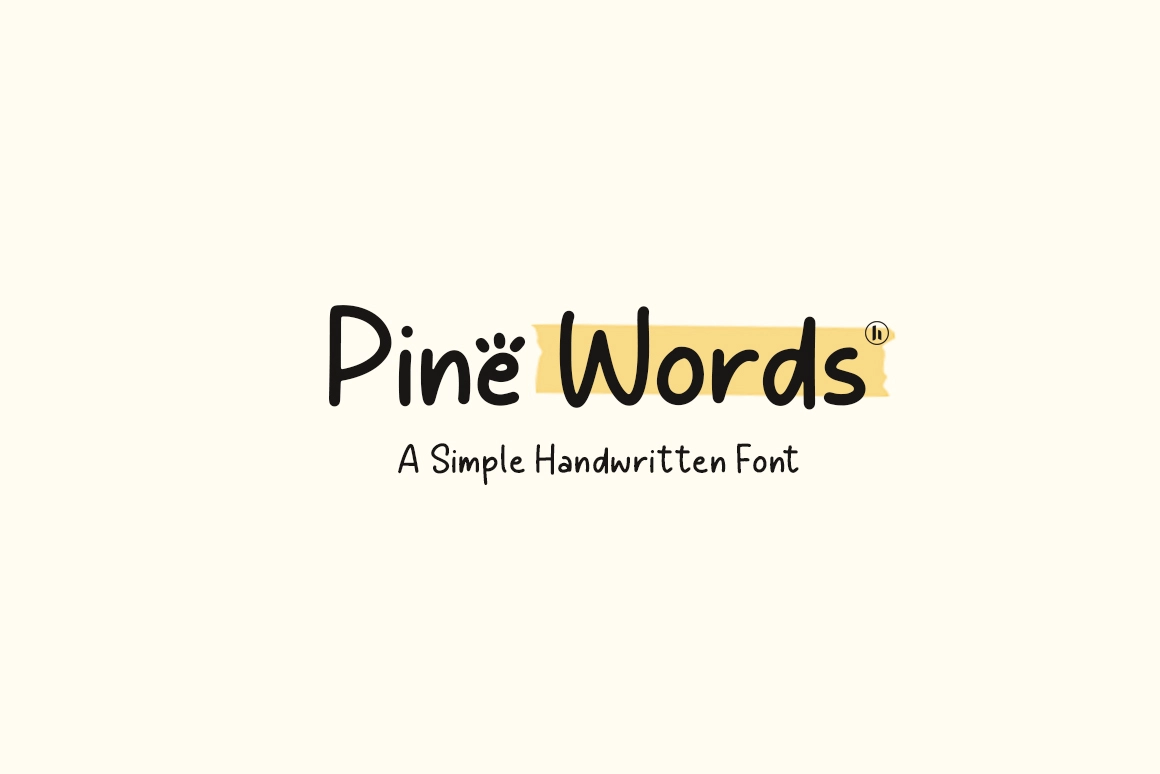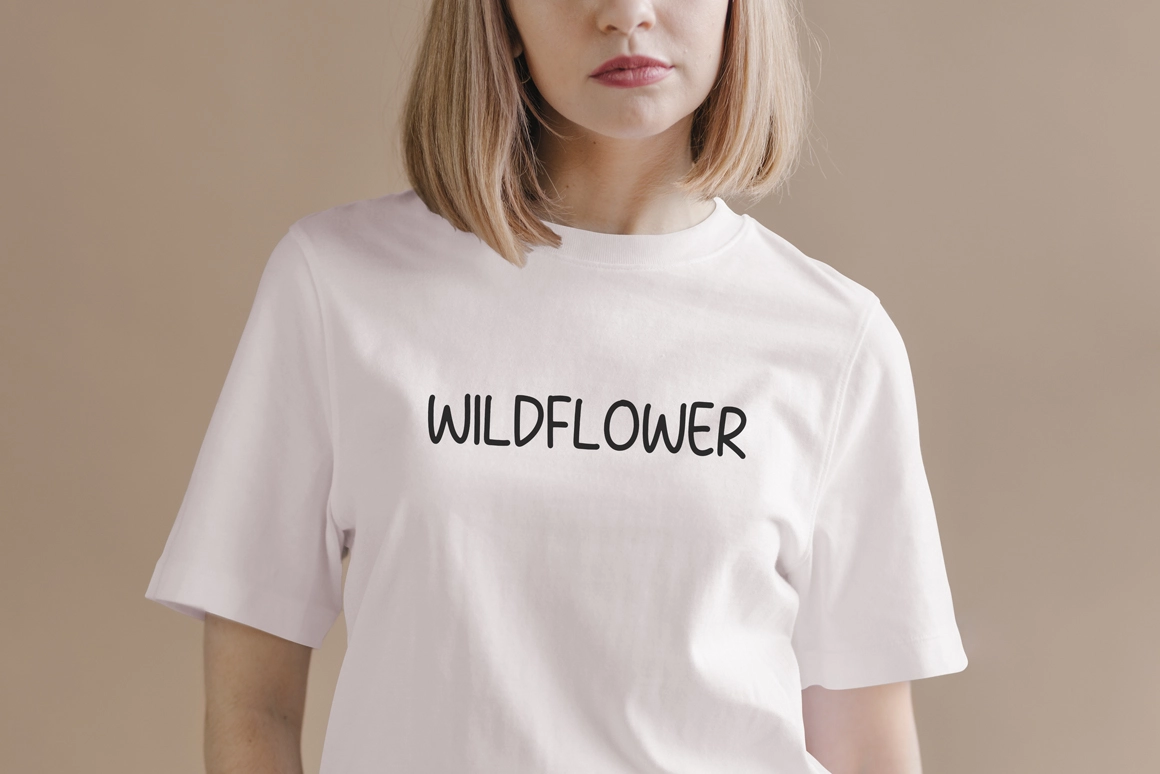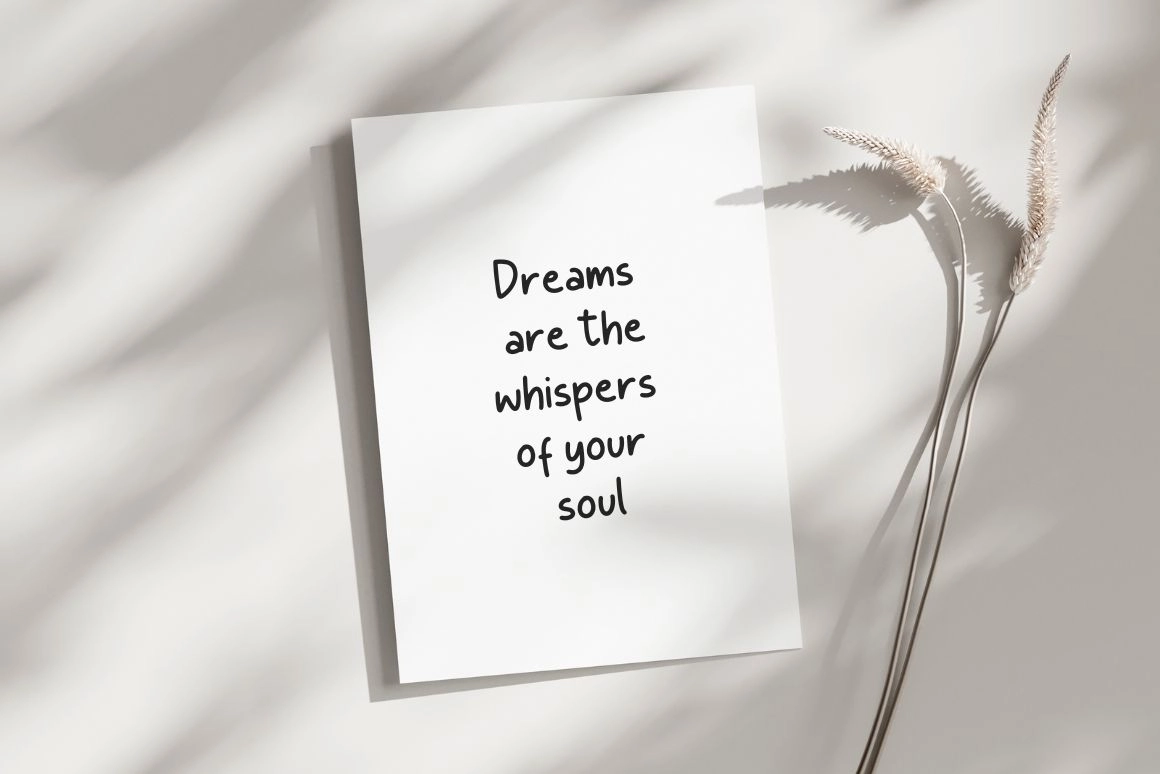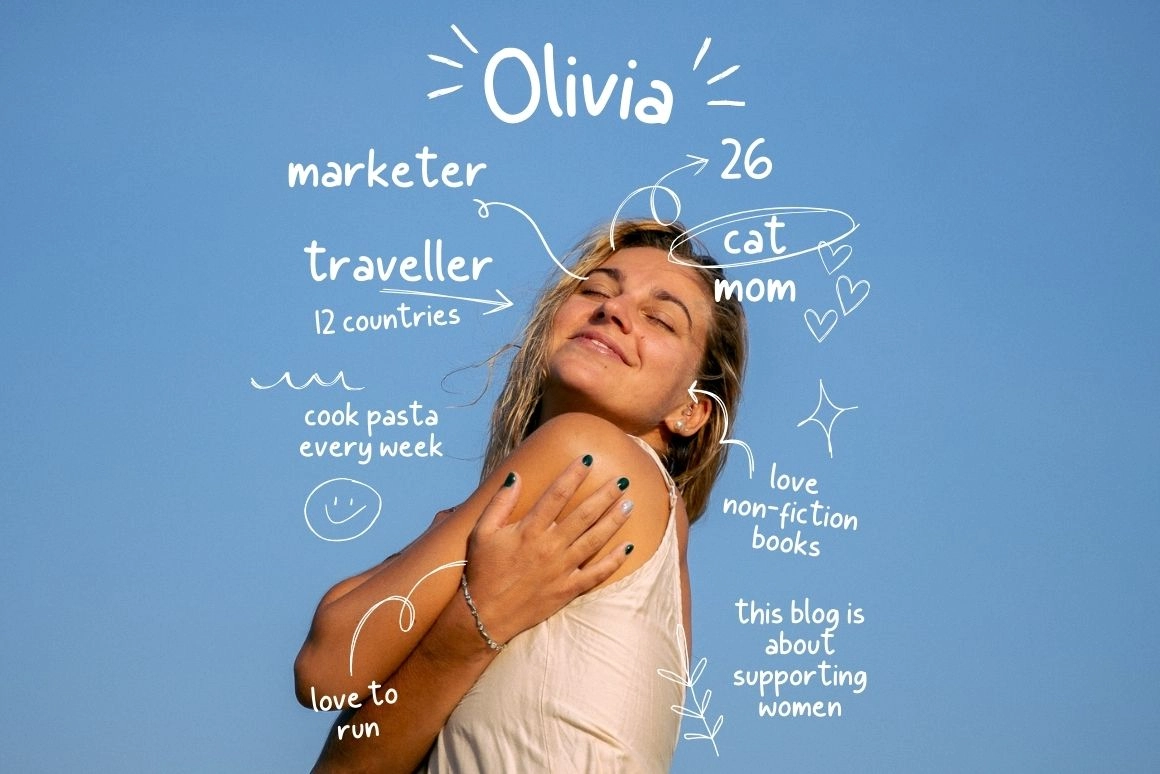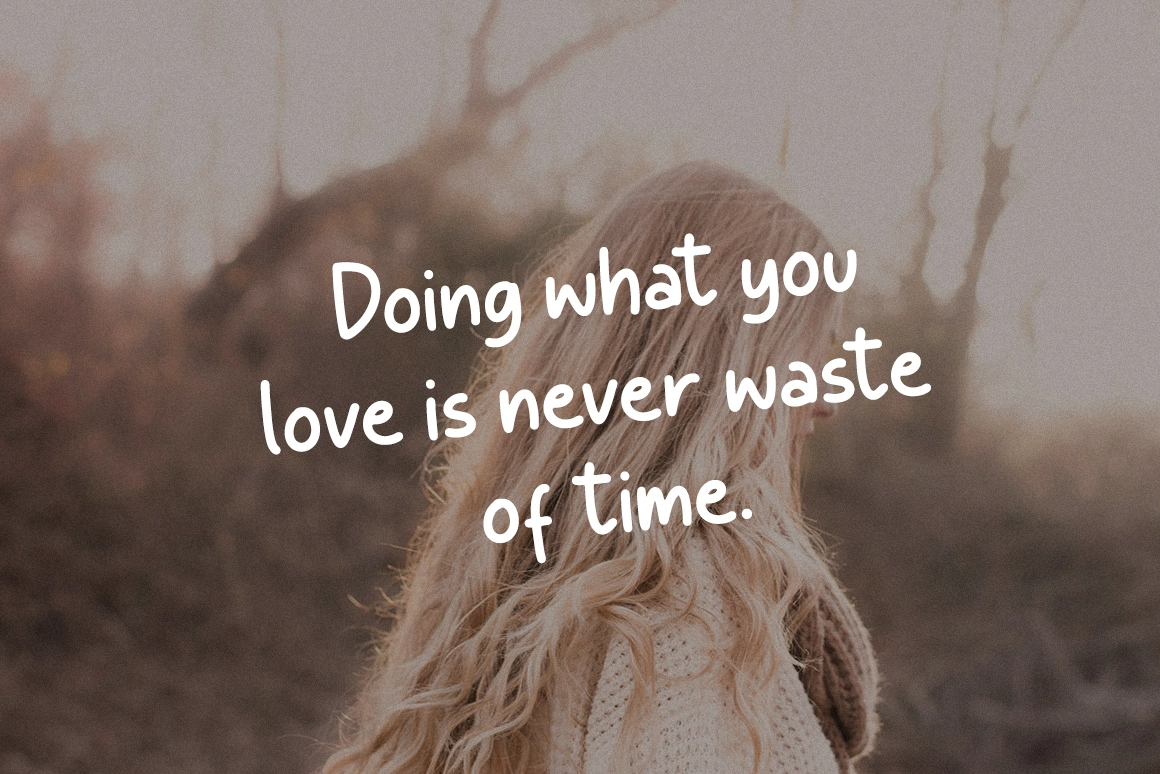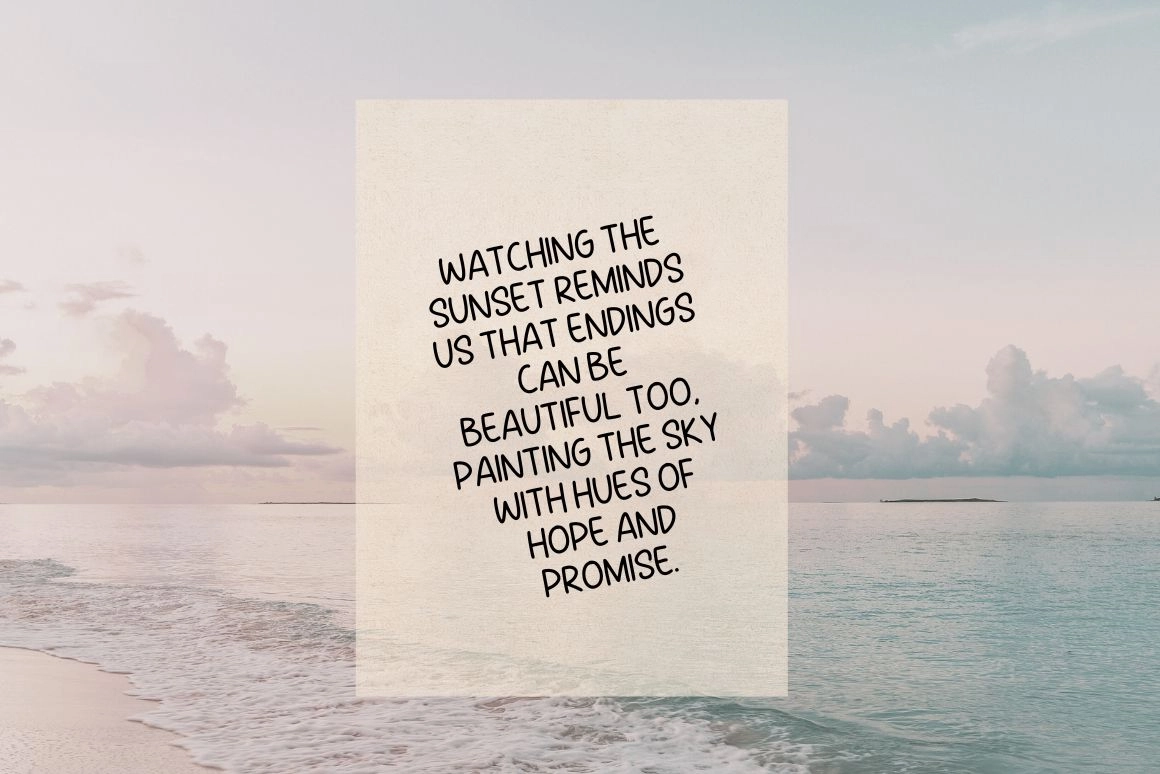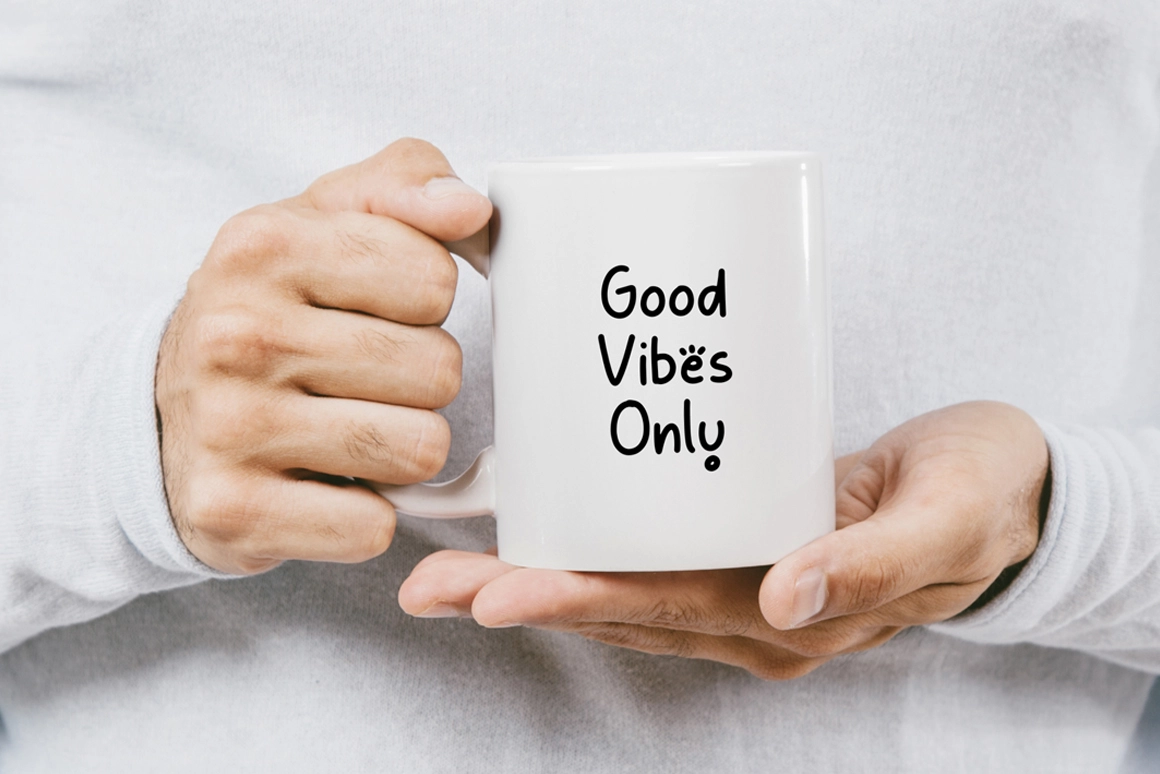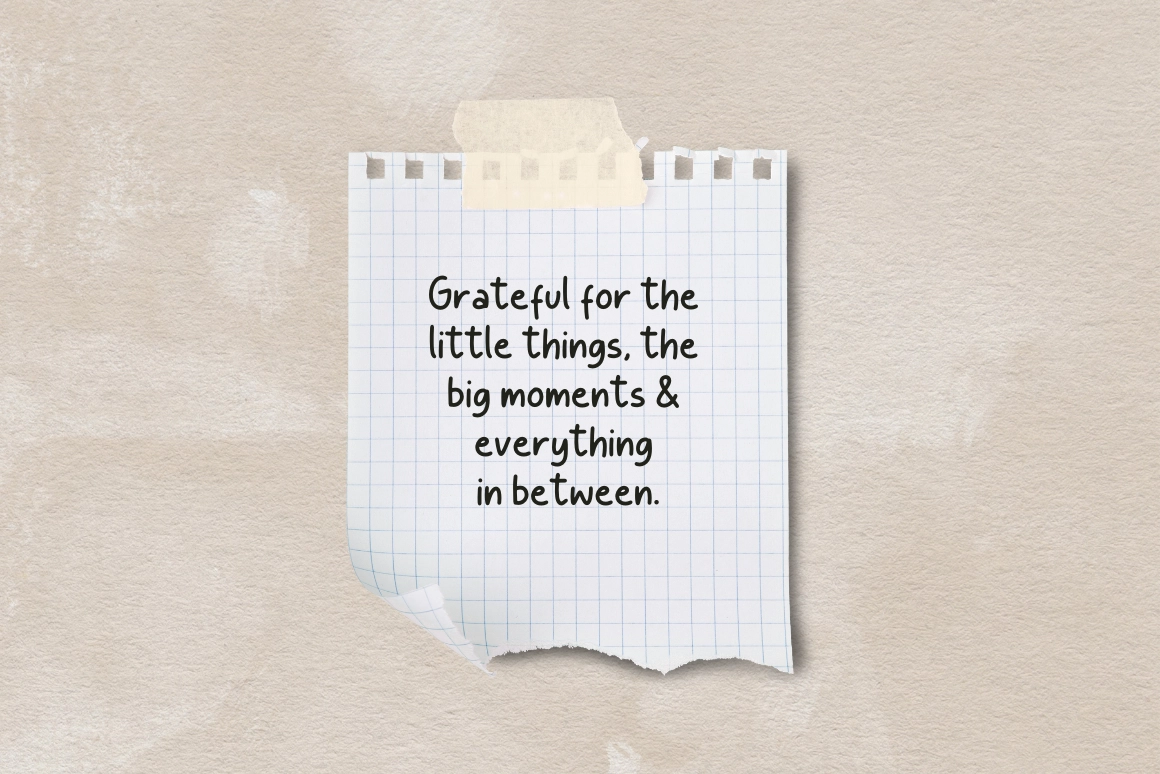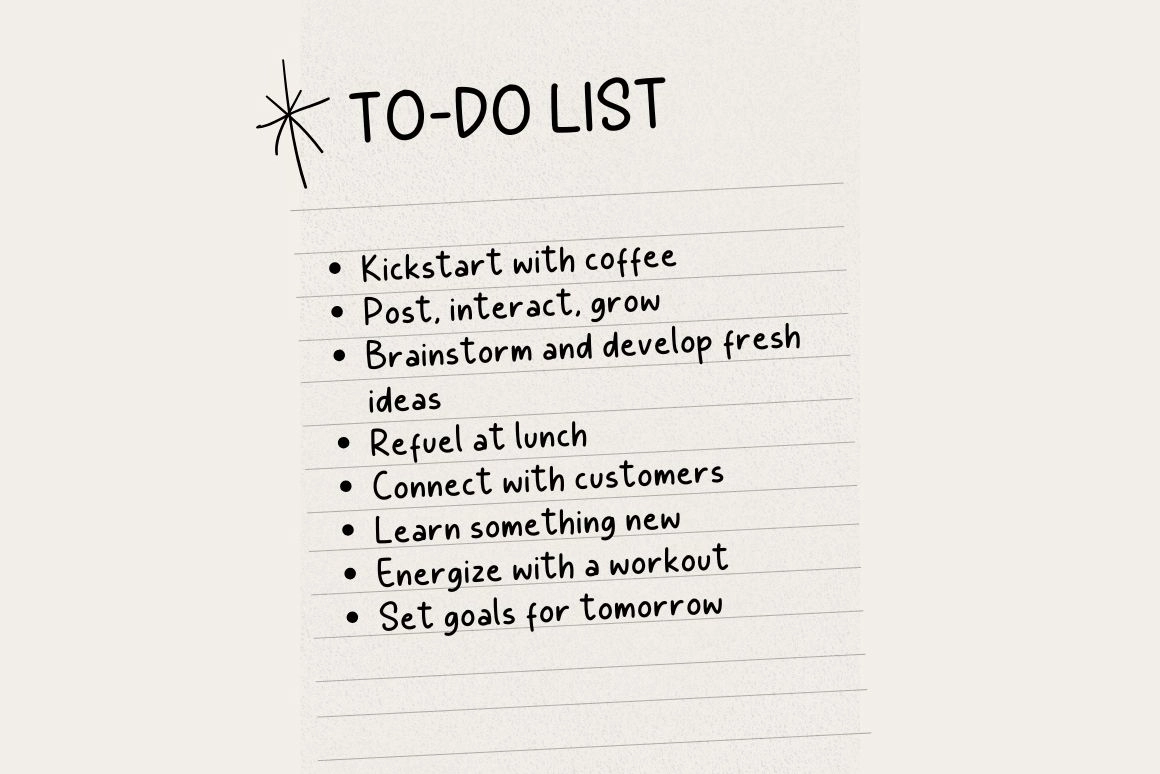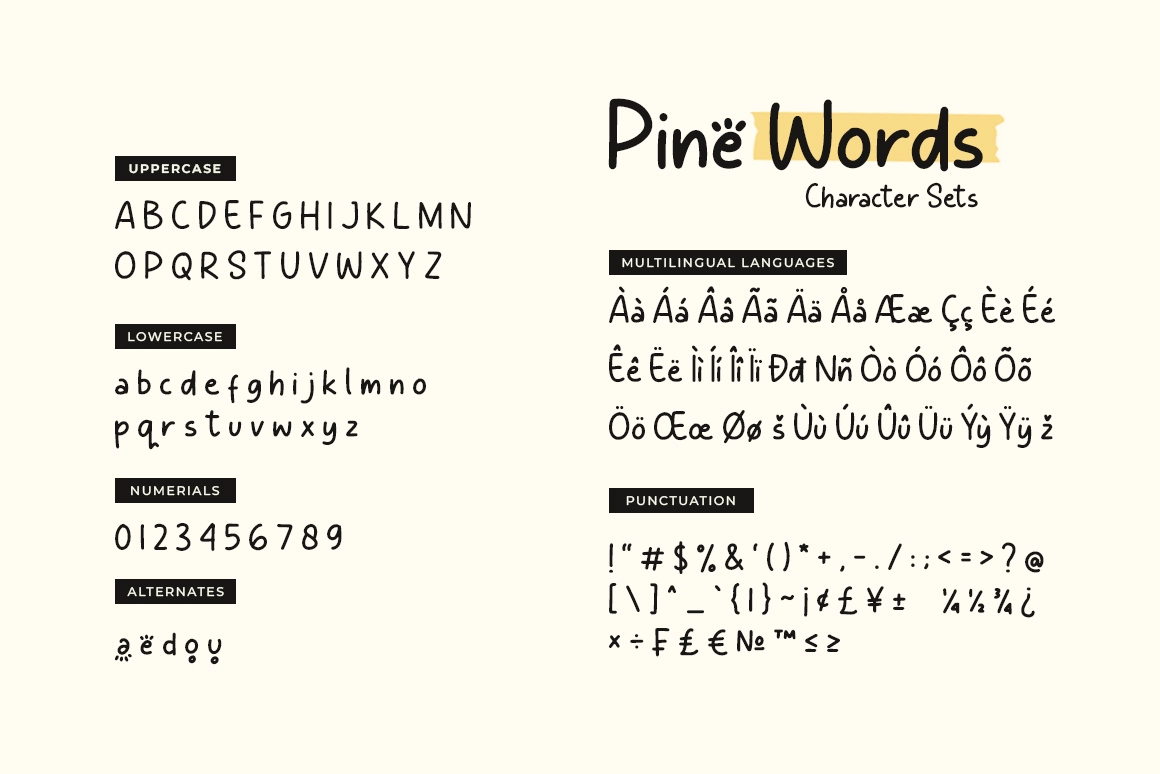
Pine Words - Simple Handwritten Font
A simple handwritten font with loose strokes, rounded endings, and an easy notebook-style rhythm. Its handwritten character is friendly and clear, giving quotes, notes, and everyday layouts a personal voice without looking overworked.
Pine Words has a light, natural flow that suits warm messages and casual brand pieces. Use it for social media quotes, to-do lists, planners, invitations, greeting cards, children’s designs, packaging notes, logo accents, journaling pages, blog graphics, classroom materials, printable stickers, and more.
• Alternates